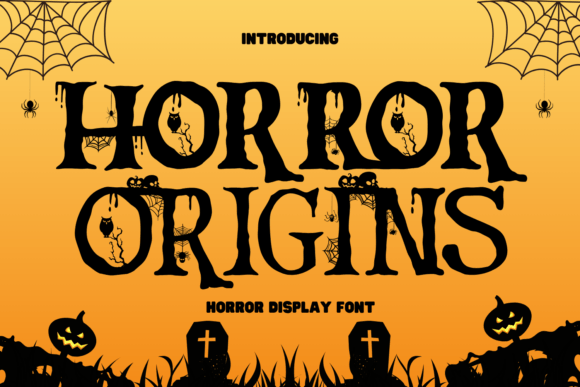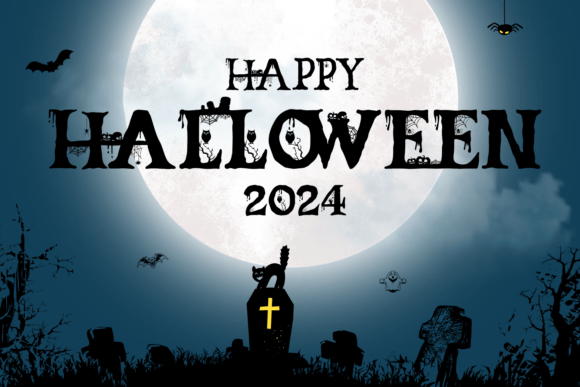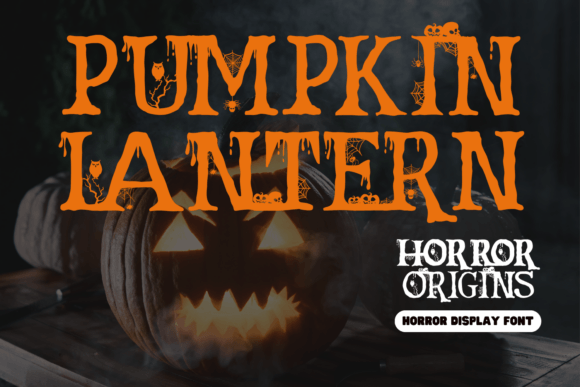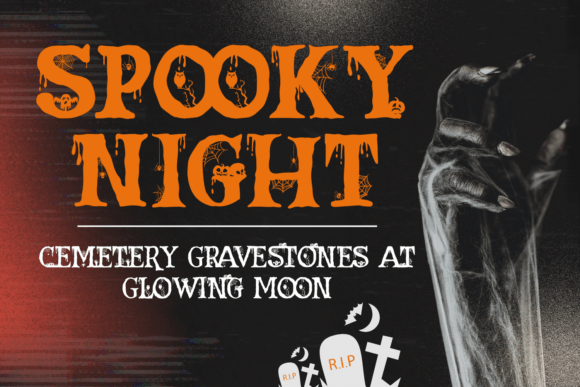
Horror Origins Font
About the Horror Origins Font
Add a touch of class to your work with the Horror Origins Font, a truly exceptional typeface. Horror Origins Font – a cute Halloween font with ghosts, spiders, and cobwebs. It’s all all-caps serif font with spooky and scary vibes. This is a special font for the Halloween theme. This font has some ligatures to give more design options. Perfect for Halloween designs, logos, branding, packaging, apparel, cards, posters, quotes, social media posts, stickers, and much more!
Its playful yet spooky nature makes it ideal for Halloween-themed projects, particularly logos, short headlines, and packaging designs where its unique character can shine. Avoid using it for large blocks of body text or UI elements; the all-caps style and decorative elements reduce readability in extended use.
Consider pairing Horror Origins with a clean sans-serif like Open Sans for a balanced contrast, allowing the display font’s personality to stand out. Alternatively, a classic serif like Garamond could add a touch of vintage elegance, while a simple geometric sans-serif provides modern sophistication.
The font’s overall personality is whimsical and spooky, conveying a fun, slightly mischievous tone. It’s best suited for brands and projects that want to capture a playful Halloween spirit without being overly childish or frightening.
Horror Origins Font Usage Examples
Horror Origins Font Example